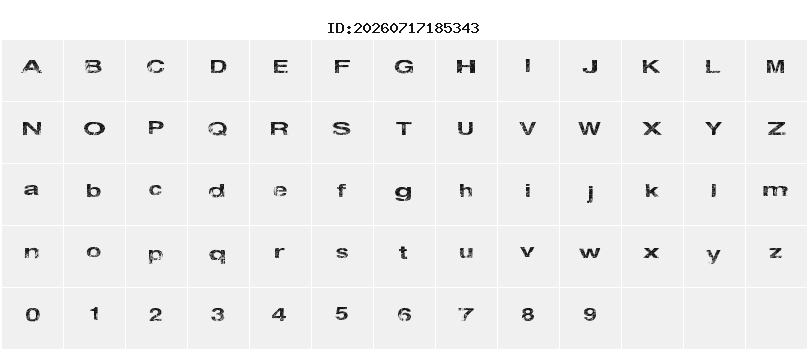
• Font Name: BernalHeights
• Designer: Xerographer Fonts Max Infeld
• Description: Made at Xerographer Studios in Chico,CA
About BernalHeights.ttf
BernalHeights.ttf is a modern, elegant sans-serif font designed for ultimate readability and visual harmony. Perfect for branding, headlines, web design, and print materials.